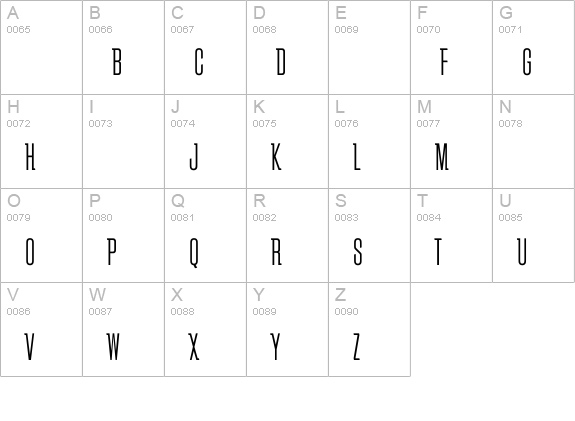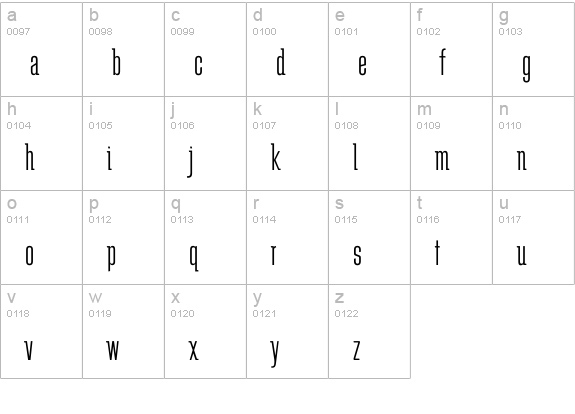
SchindlerLight Font Details
SchindlerLight font is an elegant and sophisticated typeface that exudes a sense of modernity and refinement. With its sleek and minimalistic design, this font is perfect for a wide range of creative projects, from logo designs to editorial layouts and everything in between. The beauty of SchindlerLight lies in its simplicity. The clean lines and perfectly balanced proportions make it a versatile choice that can be used in both digital and print applications. Its clarity and legibility ensure that your message is conveyed with utmost precision and professionalism. One of the greatest features of SchindlerLight font is that it is free. Yes, you read that right. This amazing font is freely available to download at FontsMarket.com. It is a rare gem in the world of typography, where high-quality fonts often come with a hefty price tag. But with SchindlerLight, you can enjoy its stunning aesthetics without breaking the bank. Whether you are a professional designer or a hobbyist, SchindlerLight font will elevate your projects to new heights. Its versatility and timeless appeal make it a valuable addition to any font collection. So why wait? Visit FontsMarket.com today and unlock the potential of SchindlerLight font for your next creative endeavor.